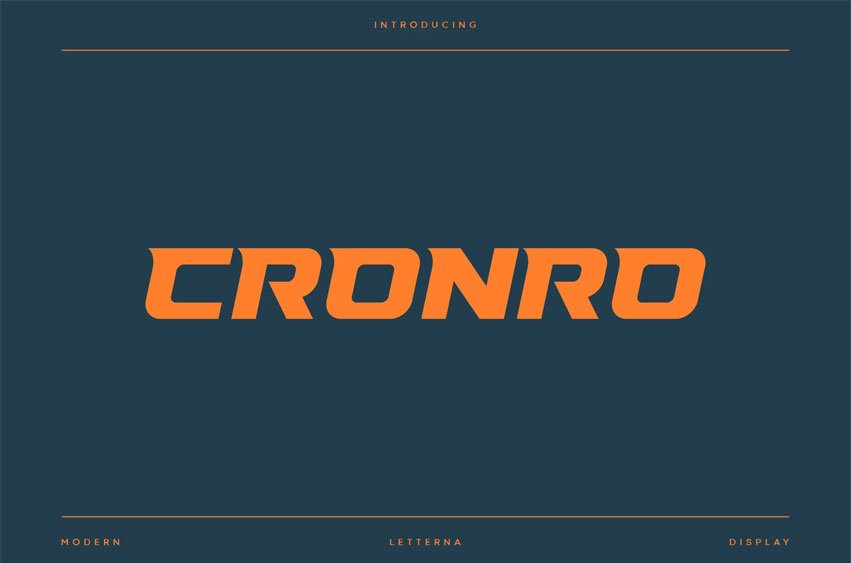
Cronro Font is a modern display font built specifically for sports branding, headlines, and more prominent typography needs. This font comes with a new and fresh all-caps style, which will make your design more memorable.
It’s perfect for adding this font to sports, tech, action, and future themes. Cronro was created for a bold action style and a modern feel, so enjoy creating any project that will showcase your main ideas.